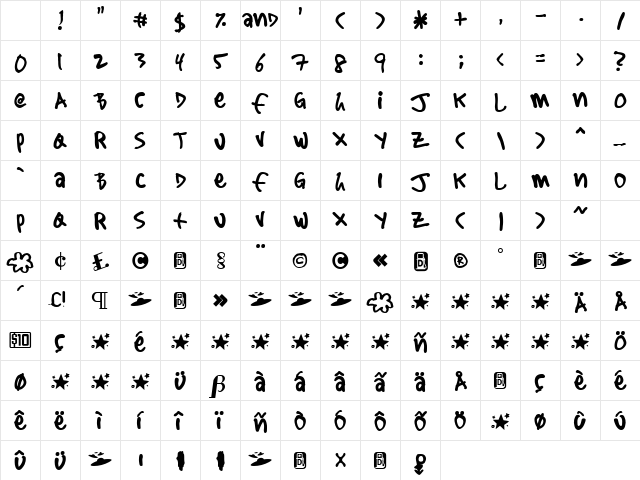
Complete Sharpie Stylie glyph index. Displaying only characters natively supported by Sharpie Stylie font.
Sharpie is a composed and adaptable typeface that performs quietly and consistently across a wide range of design contexts.